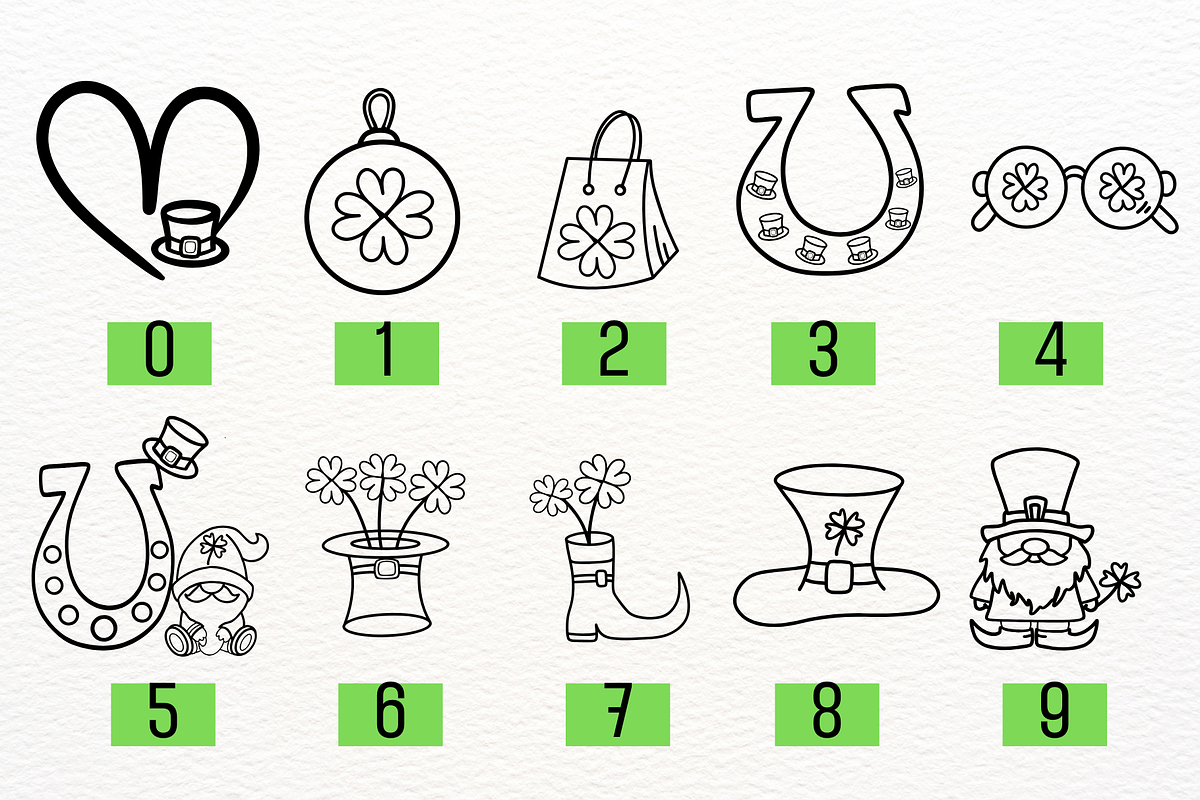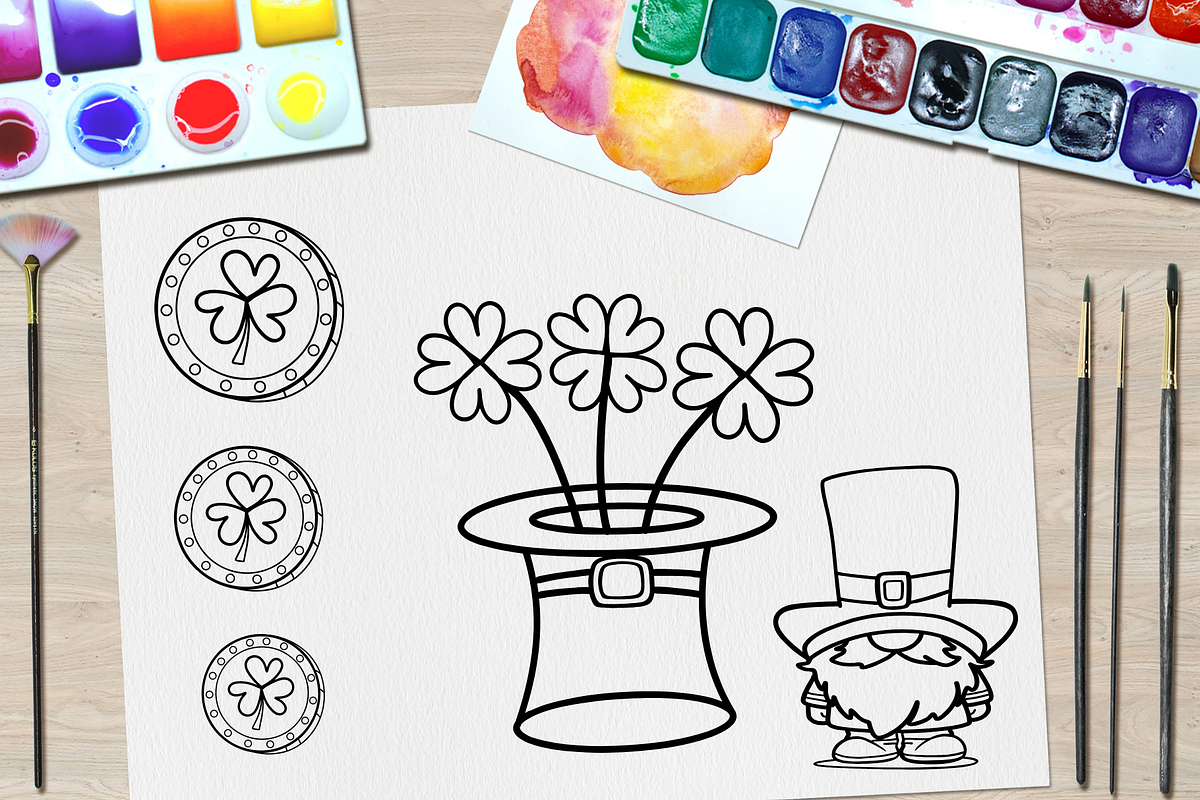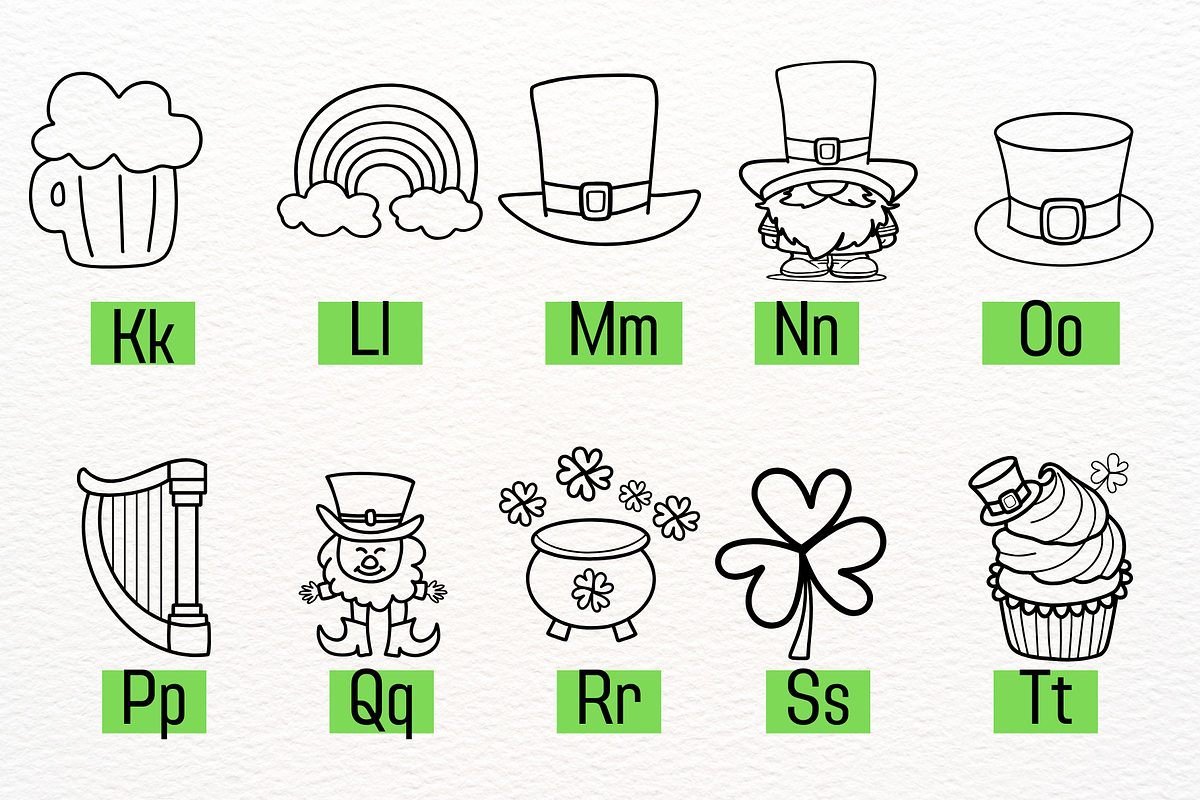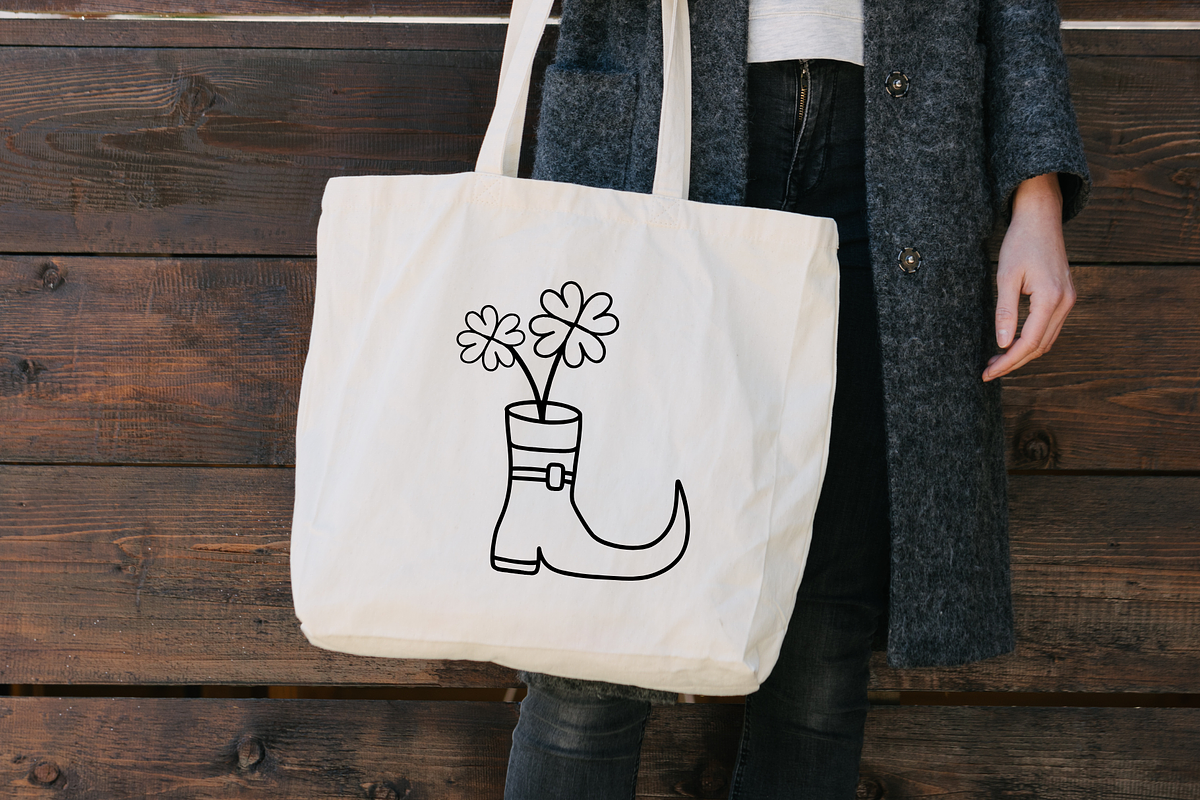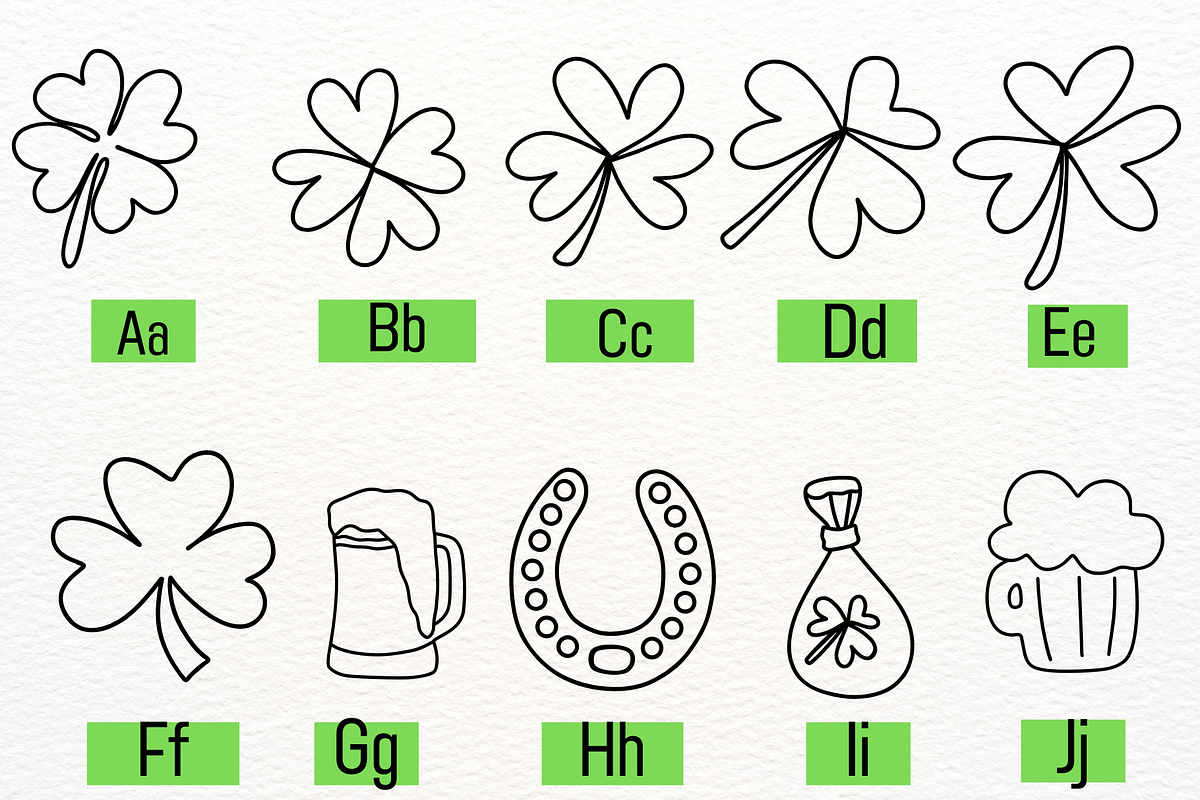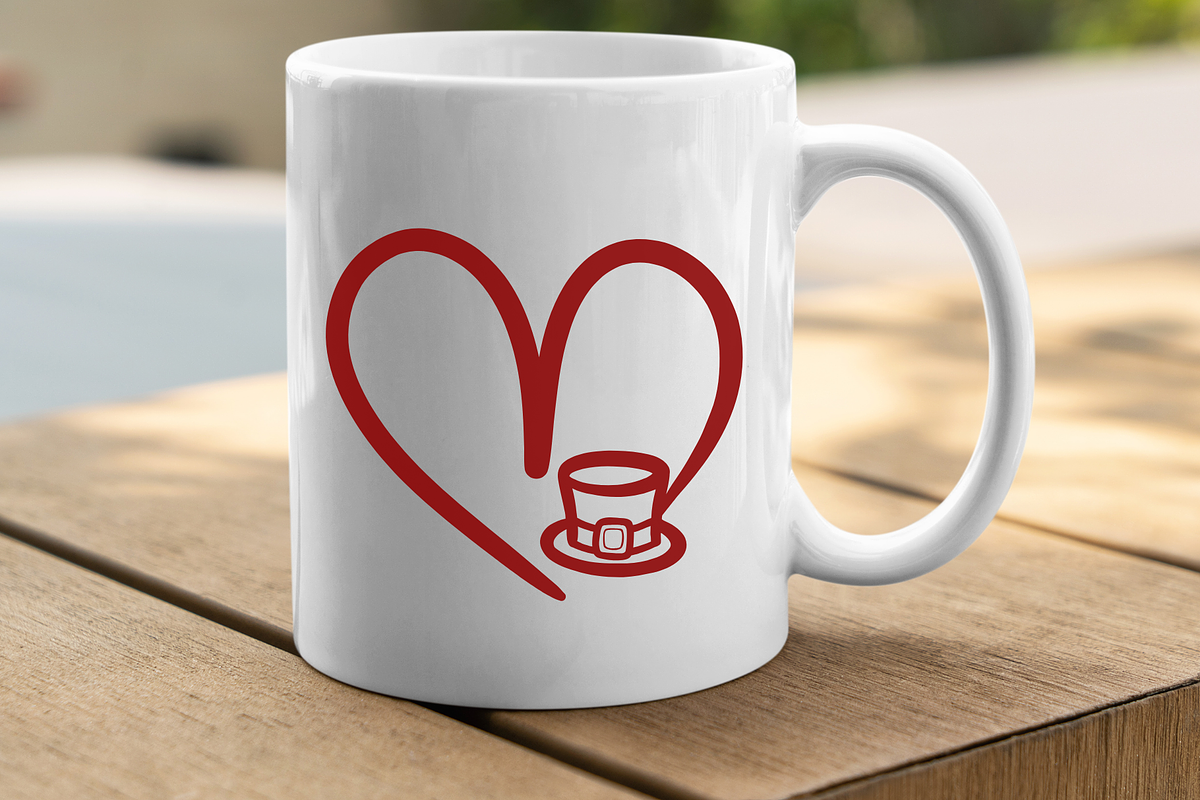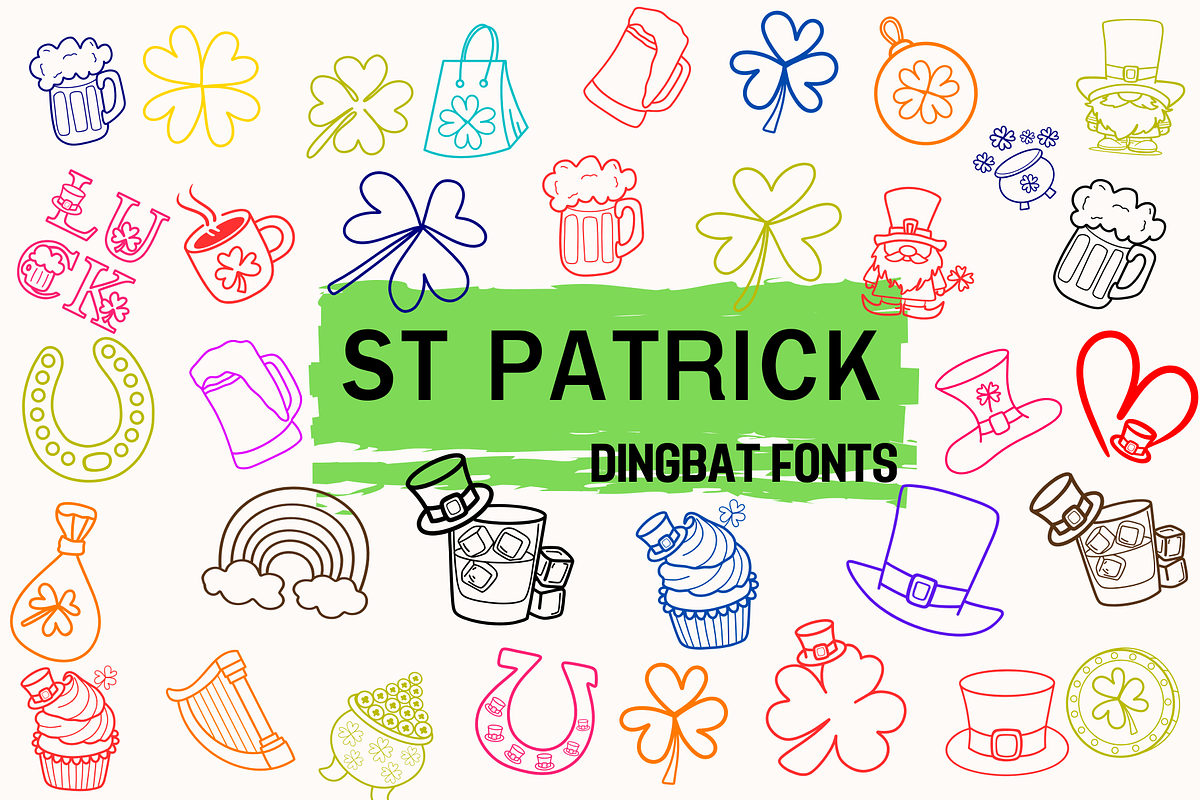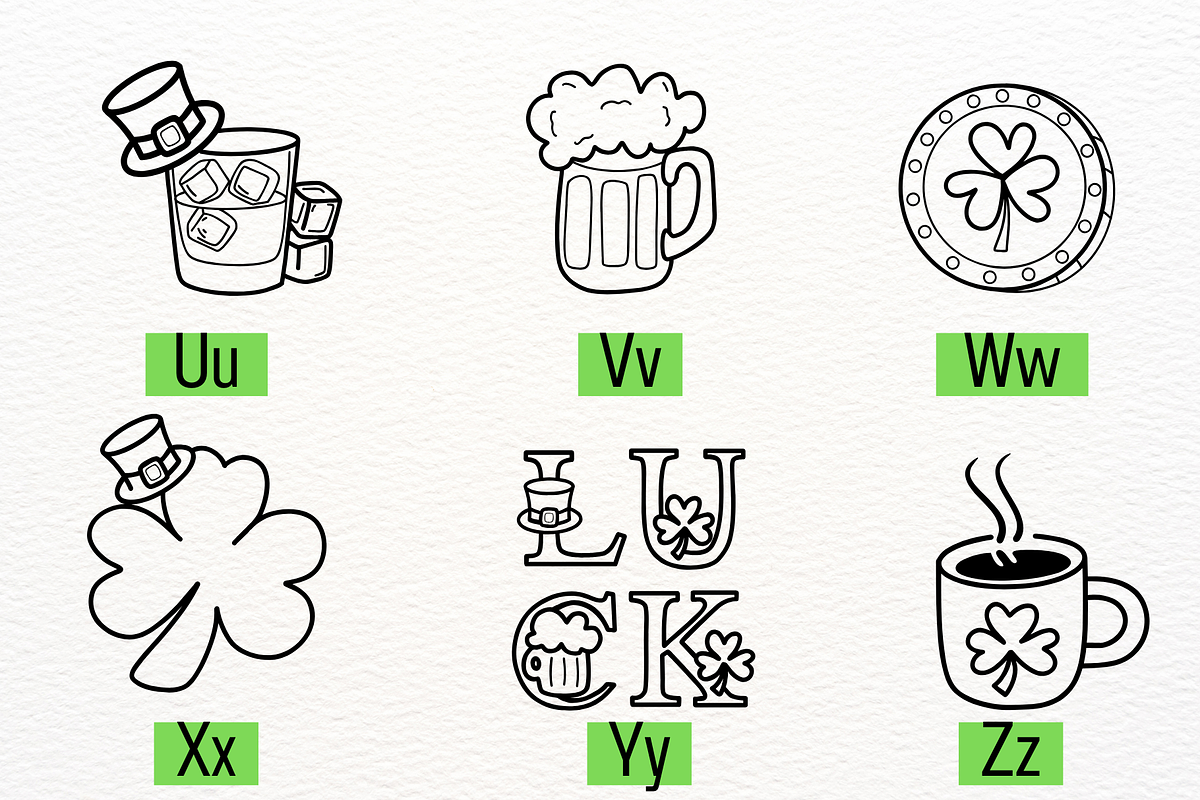
St patrick
St. Patrick Dingbat Font – Fun & Festive Symbol Font Celebrate St. Patrick's Day with this charming St. Patrick Dingbat Font! This decorative dingbat font features a variety of hand-drawn Irish-themed symbols, including lucky clovers, leprechaun hats, beer mugs, rainbows, horseshoes, and more.
This dingbat font is easy to use—just type any letter to reveal a different St. Patrick's Day symbol! Works with any design software that supports fonts.